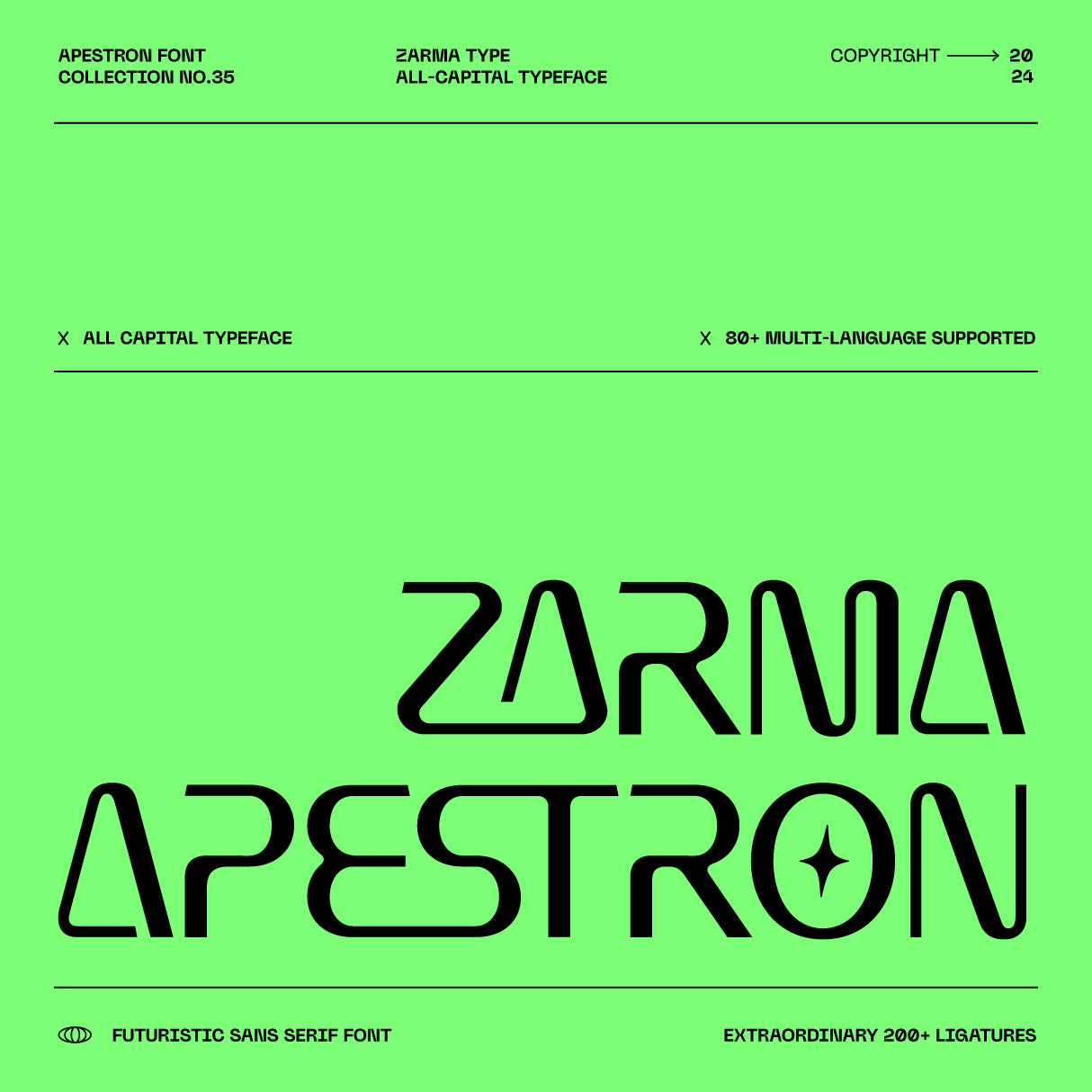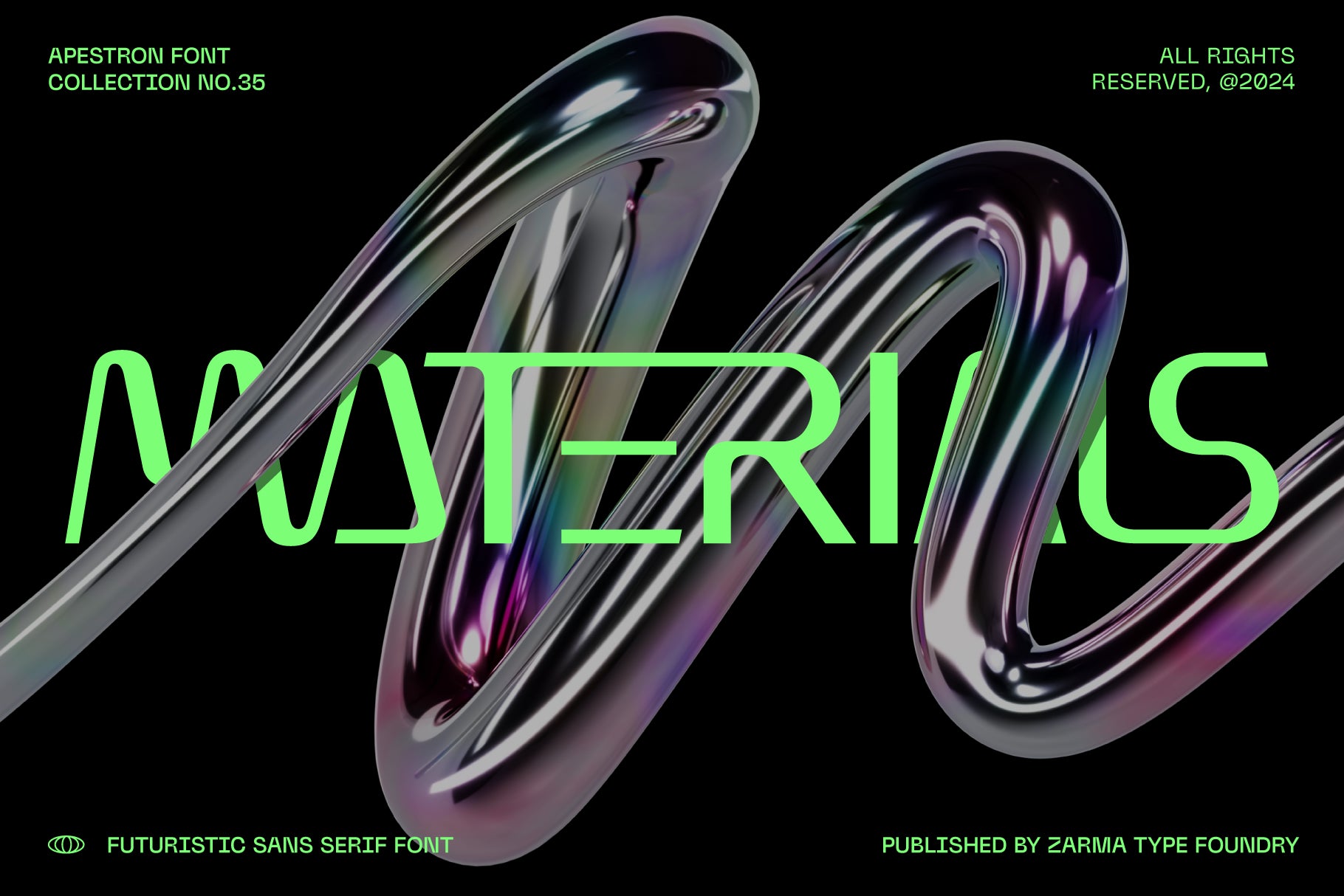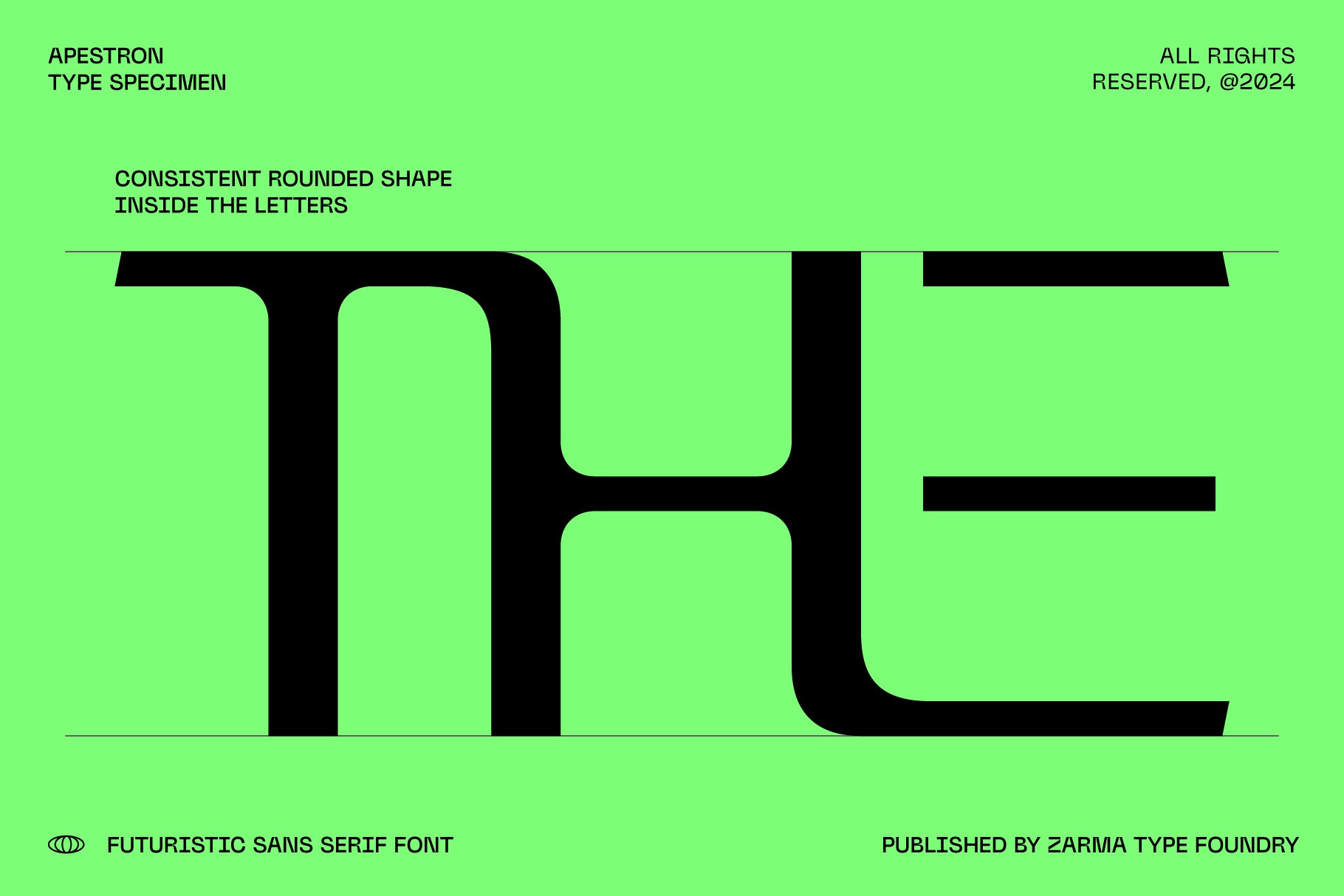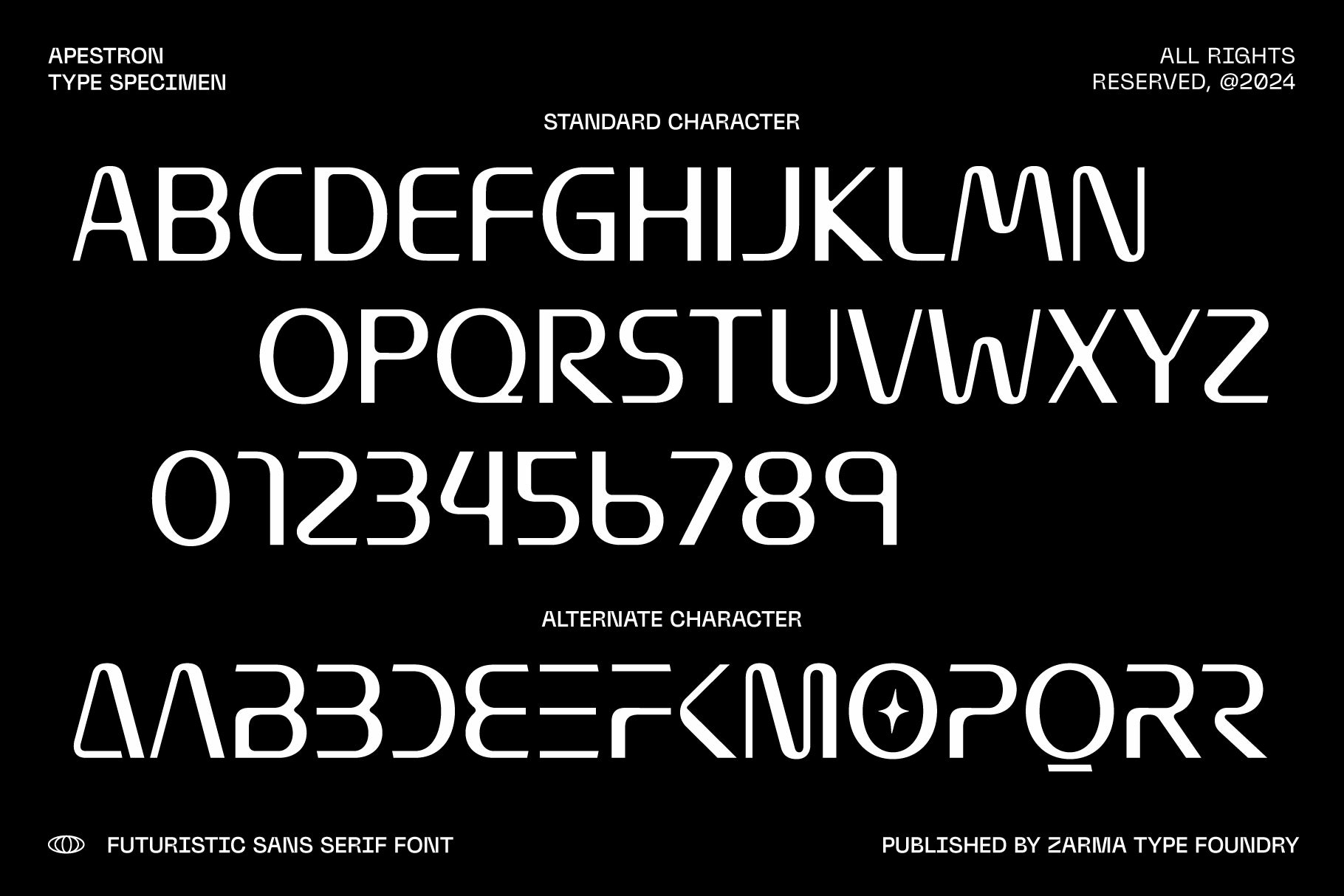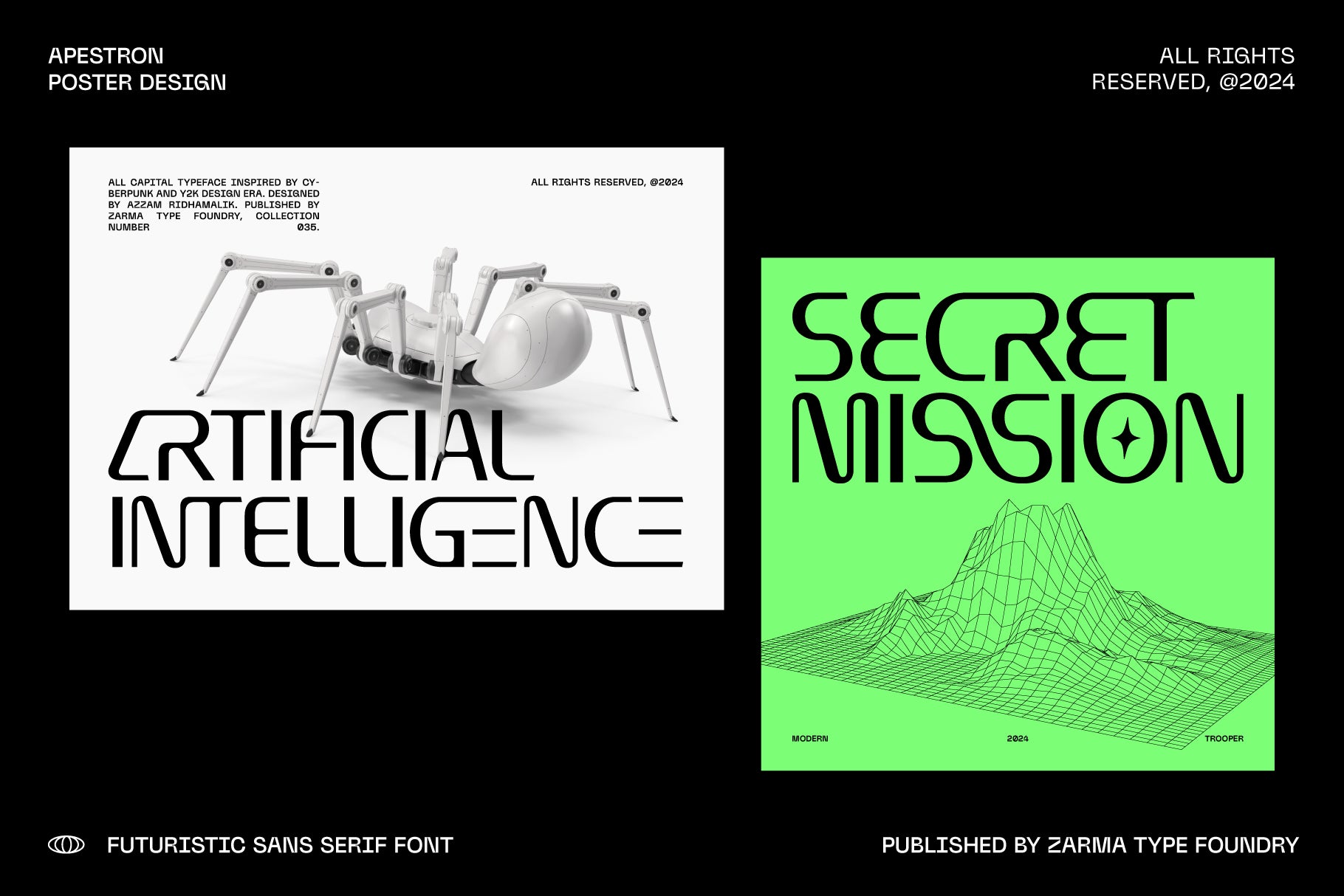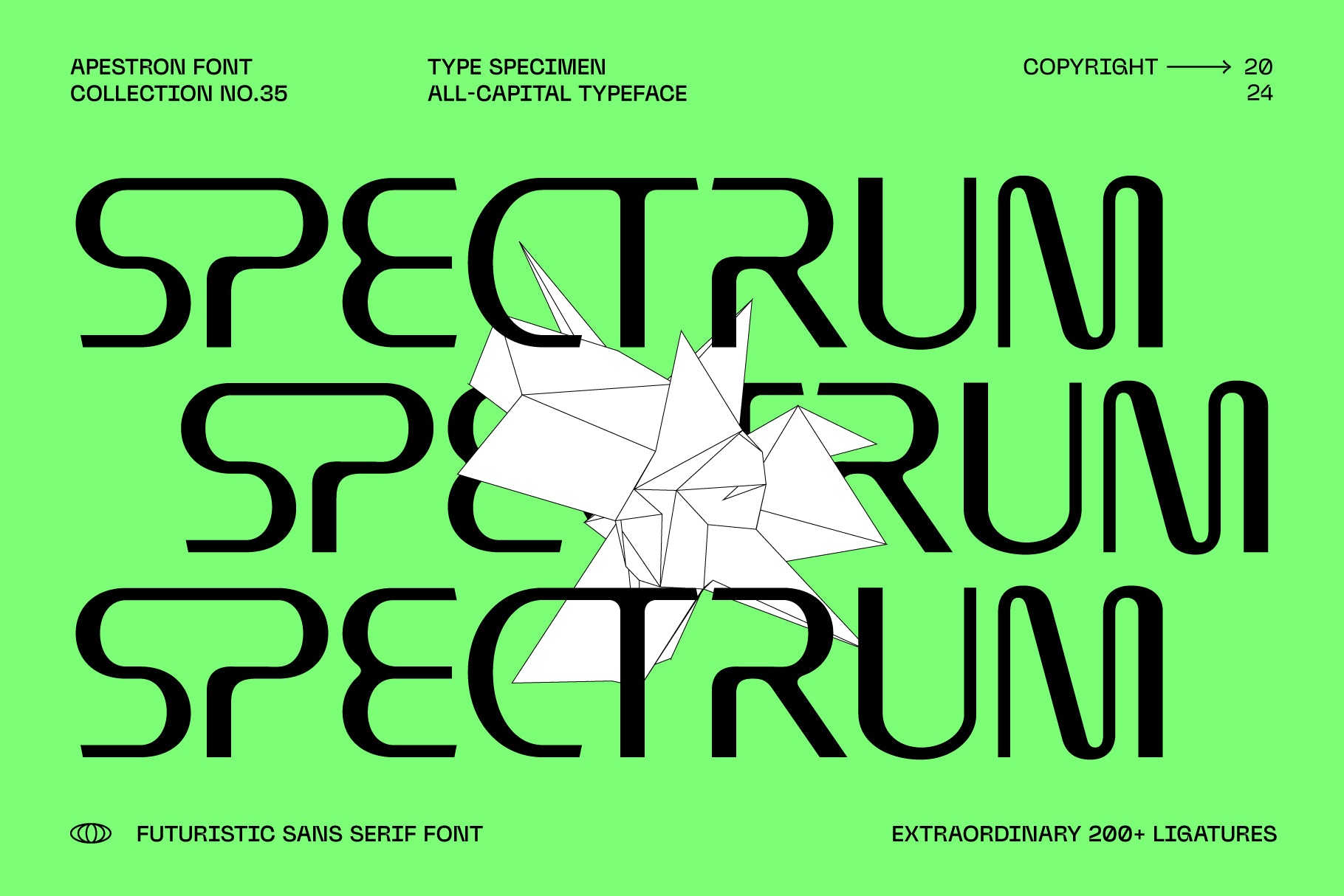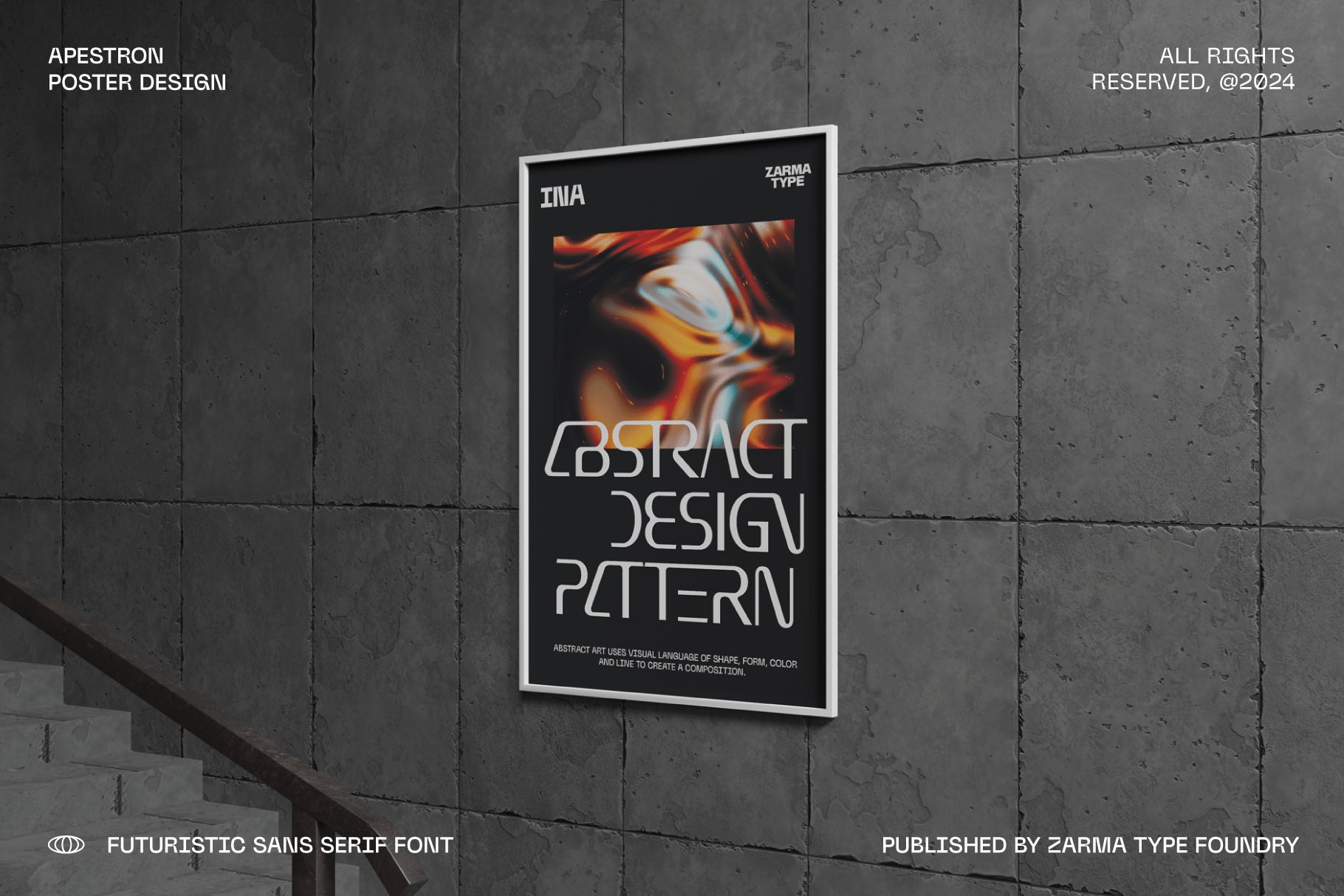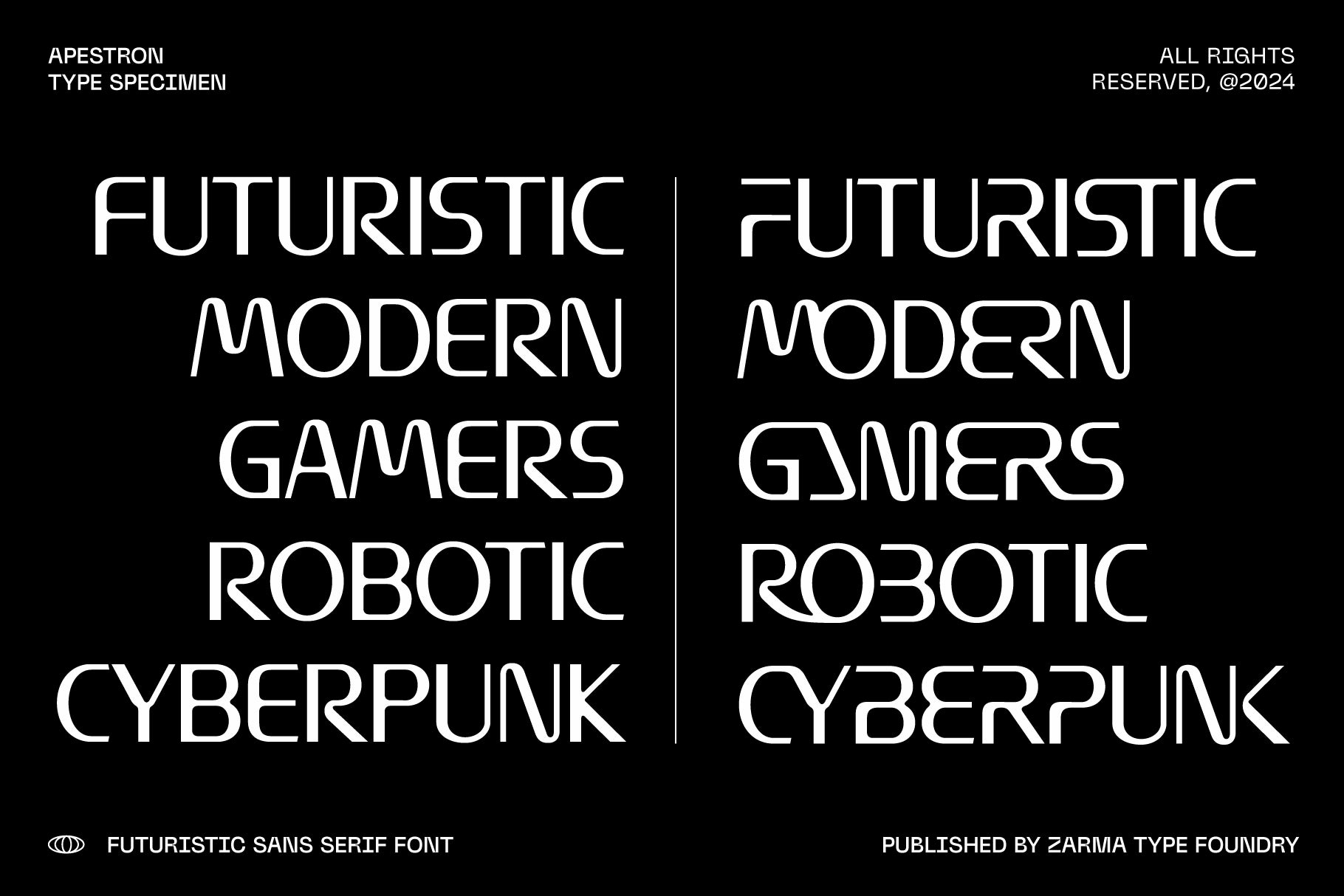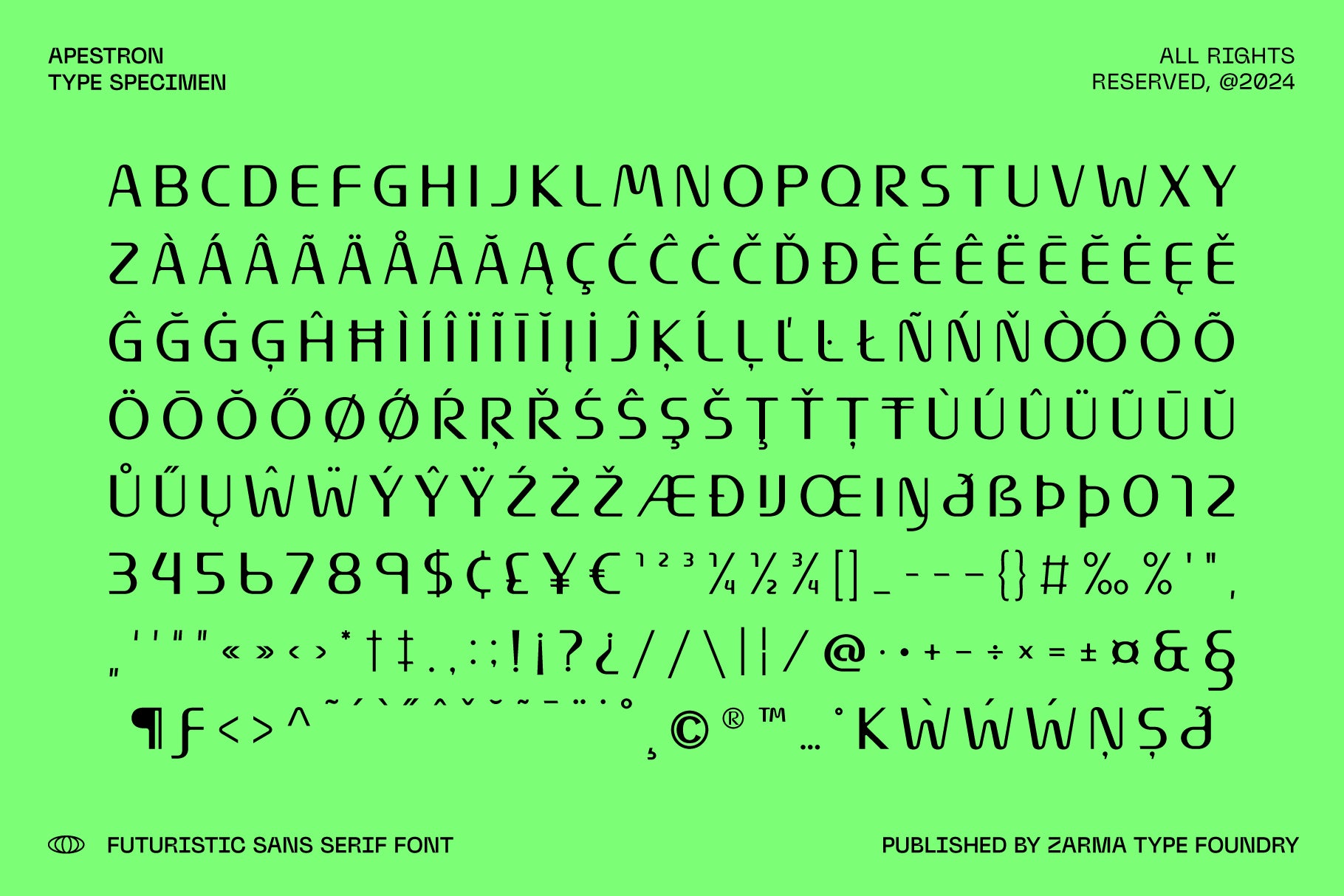
Apestron Font
Apestron is a futuristic sans-serif font that brings a sleek, modern aesthetic to your design projects with clean lines, consistent stroke weights, and excellent legibility. Designed as an all-capital typeface, it is the perfect choice for tech, gaming, sci-fi, futuristic, minimalist, and technology-themed designs. Whether you're creating branding, layout design, web design, interface design, or bold digital experiences, Apestron delivers a sophisticated visual style that captures the essence of modern innovation while offering endless creative possibilities through more than 200 ligatures and stylistic alternate characters.
Built for versatility, Apestron includes uppercase and lowercase characters, numbers, punctuation, symbols, arrows, ligatures, OpenType features, and PUA encoded characters for seamless access across design software. With an Extended Latin character set featuring 550+ glyphs and multilingual support for 88+ languages, Apestron provides the flexibility and global compatibility needed to create striking typography for both digital and print applications.
Apestron Font is a futuristic sans-serif typeface featuring clean lines and consistent stroke weights, designed as an all-capital font with over 200 ligatures and stylistic alternate characters. It includes uppercase and lowercase characters, numbers, punctuation, symbols, and supports 550+ glyphs with multilingual capabilities for 88+ languages, making it suitable for a wide range of design applications.